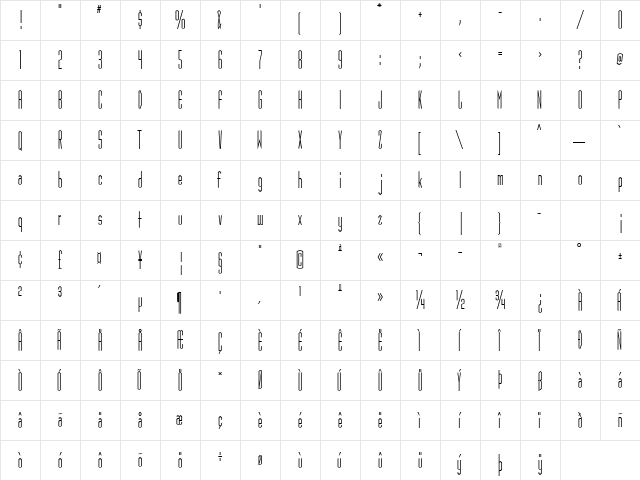
ArkSGC MonogramCenter Font Preview
ArkSGC MonogramCenter
Design Context for ArkSGC Typeface
ArkSGC uses fixed-width spacing throughout, giving it the structured, systematic character associated with coding environments and technical documentation.
Pro Tip: Pair ArkSGC with a proportional sans for UI contexts where code-style labels and regular body copy need to coexist.